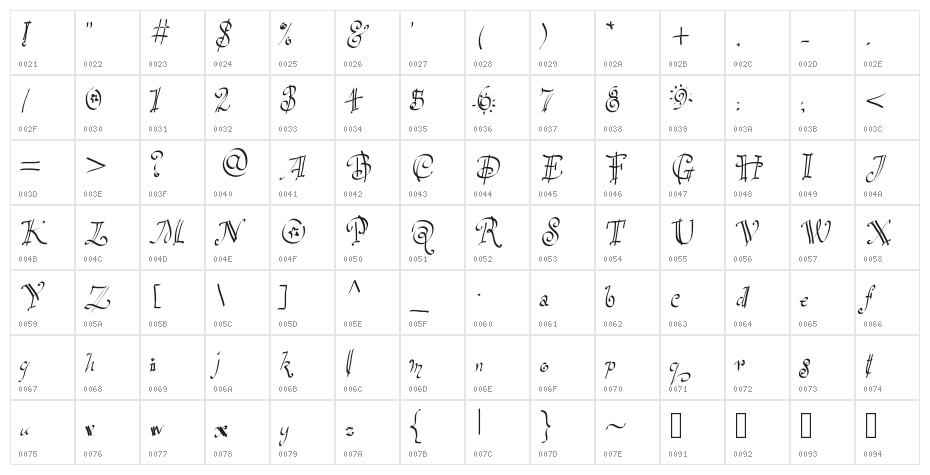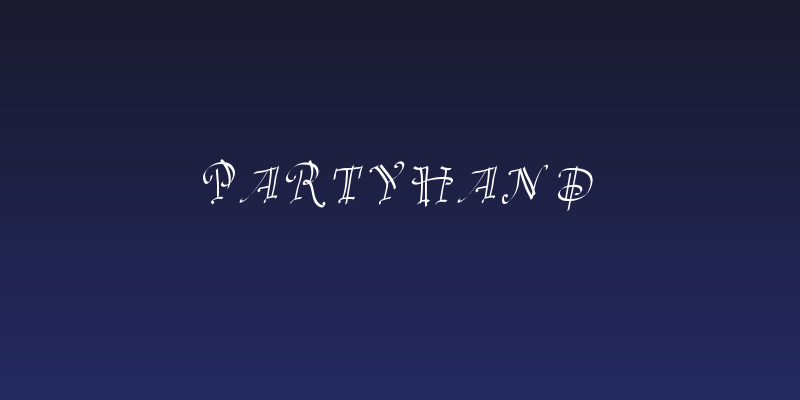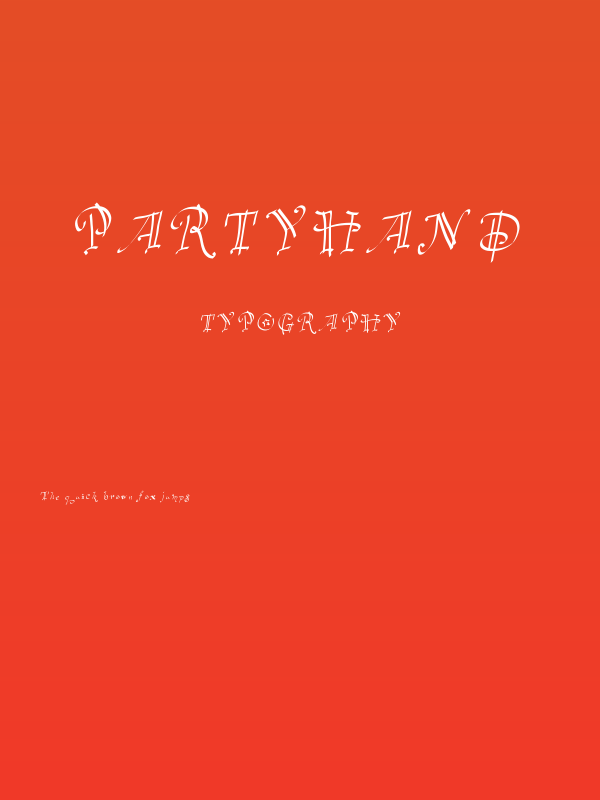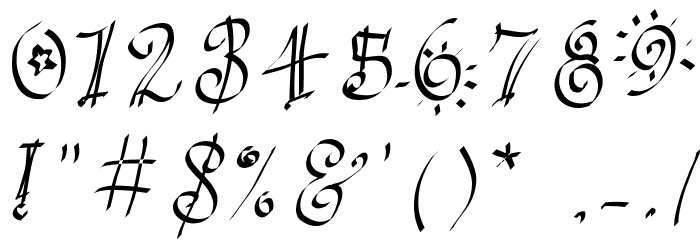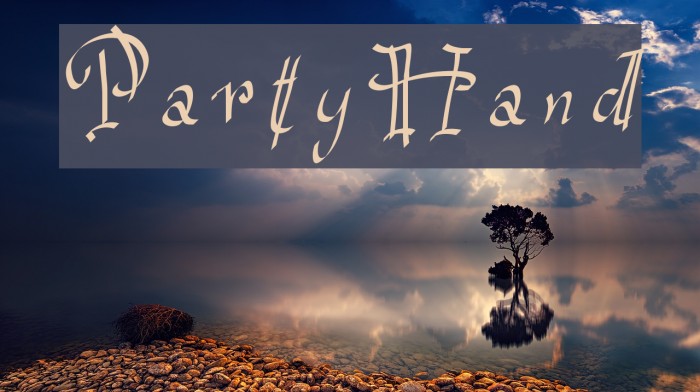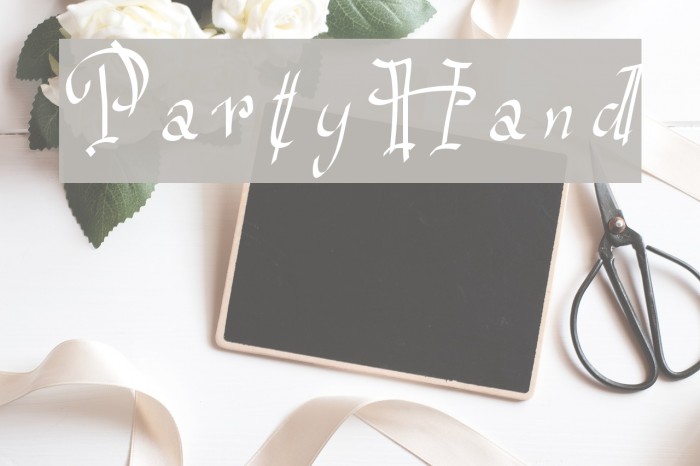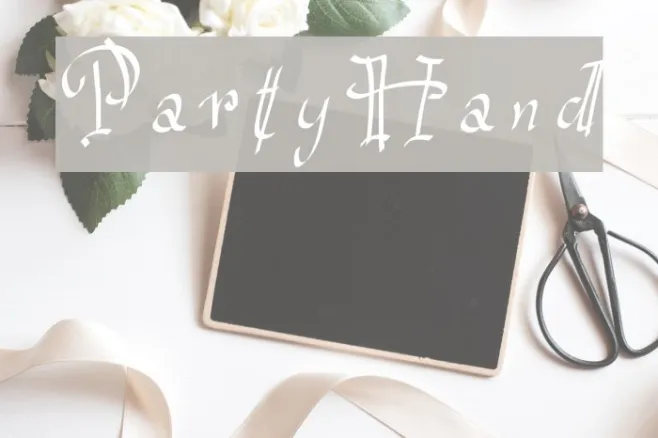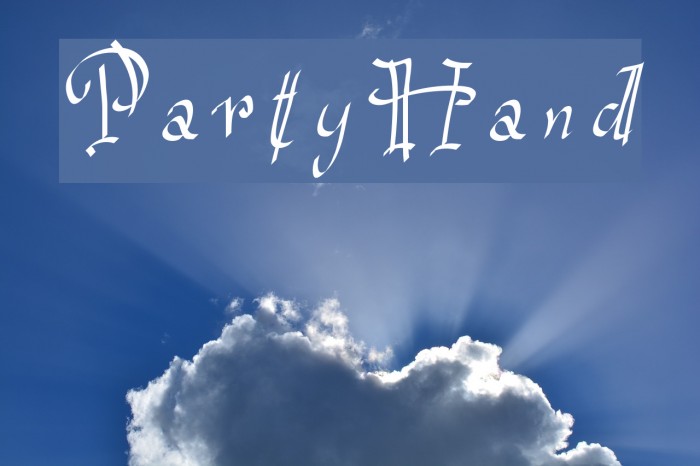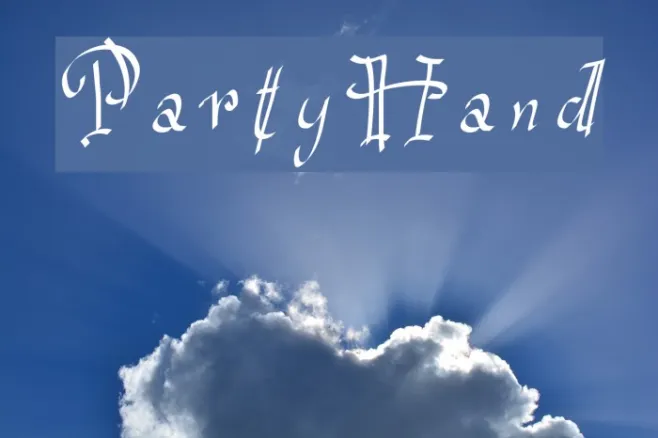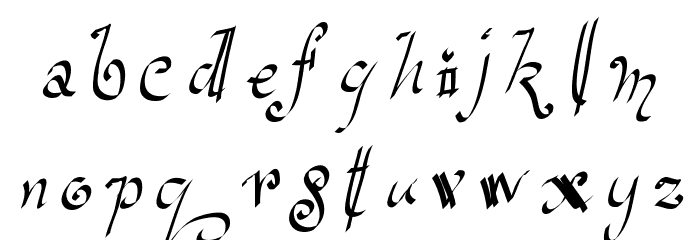
PartyHand Font
PartyHand Description
This font features a whimsical and playful design, characterized by its decorative and ornate style. The uppercase letters are embellished with unique flourishes and star-like accents, giving each character a distinctive appearance. The lowercase letters maintain a similar decorative flair, with some characters featuring loops and swirls that add to the font's overall charm. The numbers and special characters are equally stylized, incorporating elements such as stars and sunburst motifs. This font's intricate design makes it ideal for creative and artistic projects where a touch of elegance and fun is desired.
| Use Case | Headlines, Logos, Artistic projects |
| Proposed Projects | Ideal for party invitations, greeting cards, artistic posters, and decorative branding. |